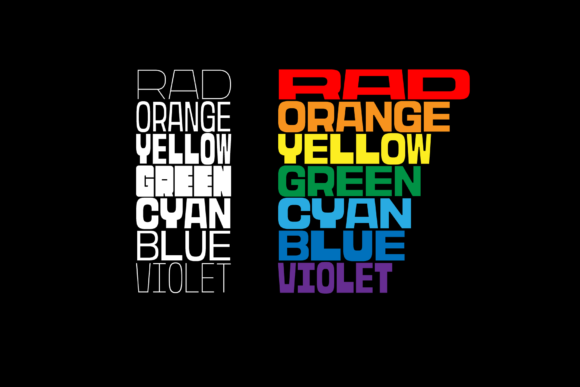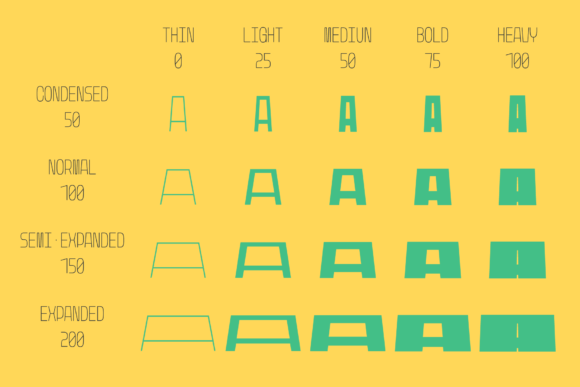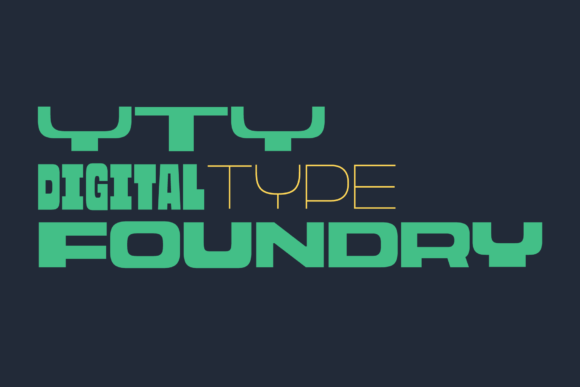
Introduction to Rasterquan Font
Rasterquan is a cool, interesting and geometric lettered display font.
It will look stunning on any poster, flyer or print Use this font for your designs and explore its endless possibilities.